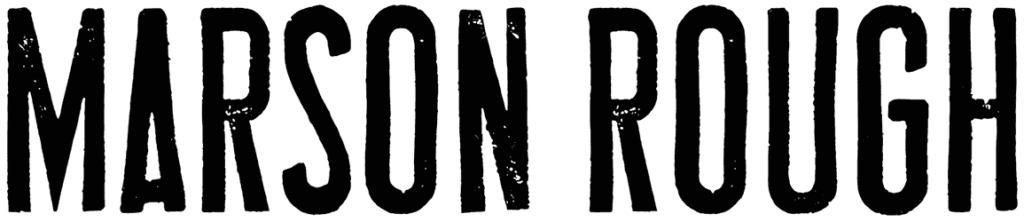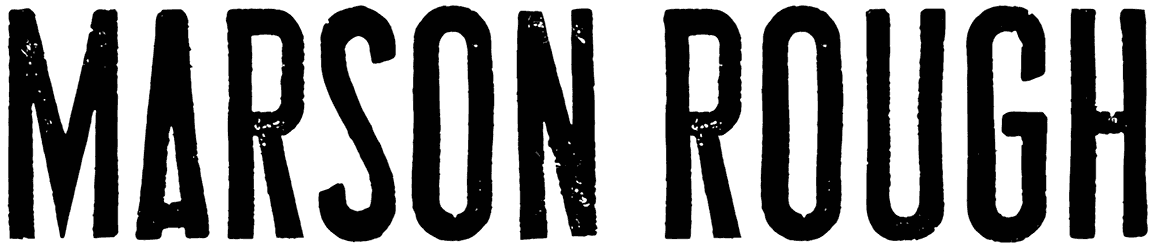
Marson Rough Font
Designed byMarcel Schonebeck
Do you wanna your design to look arresting and forworn? An grunge font like Marson can make it happen with its bold and kinda damaged or erased lines. This rustic font doesn’t include lowercase and most of the punctuation, but can remain an intriguing option to display designs like branding, posters, movies, or many more items.
Marson is a strong condensed displayfont in 3 styles.
It’s made from old rubber-stamps.
Works great in branding, logotype, editorial, films, packaging …